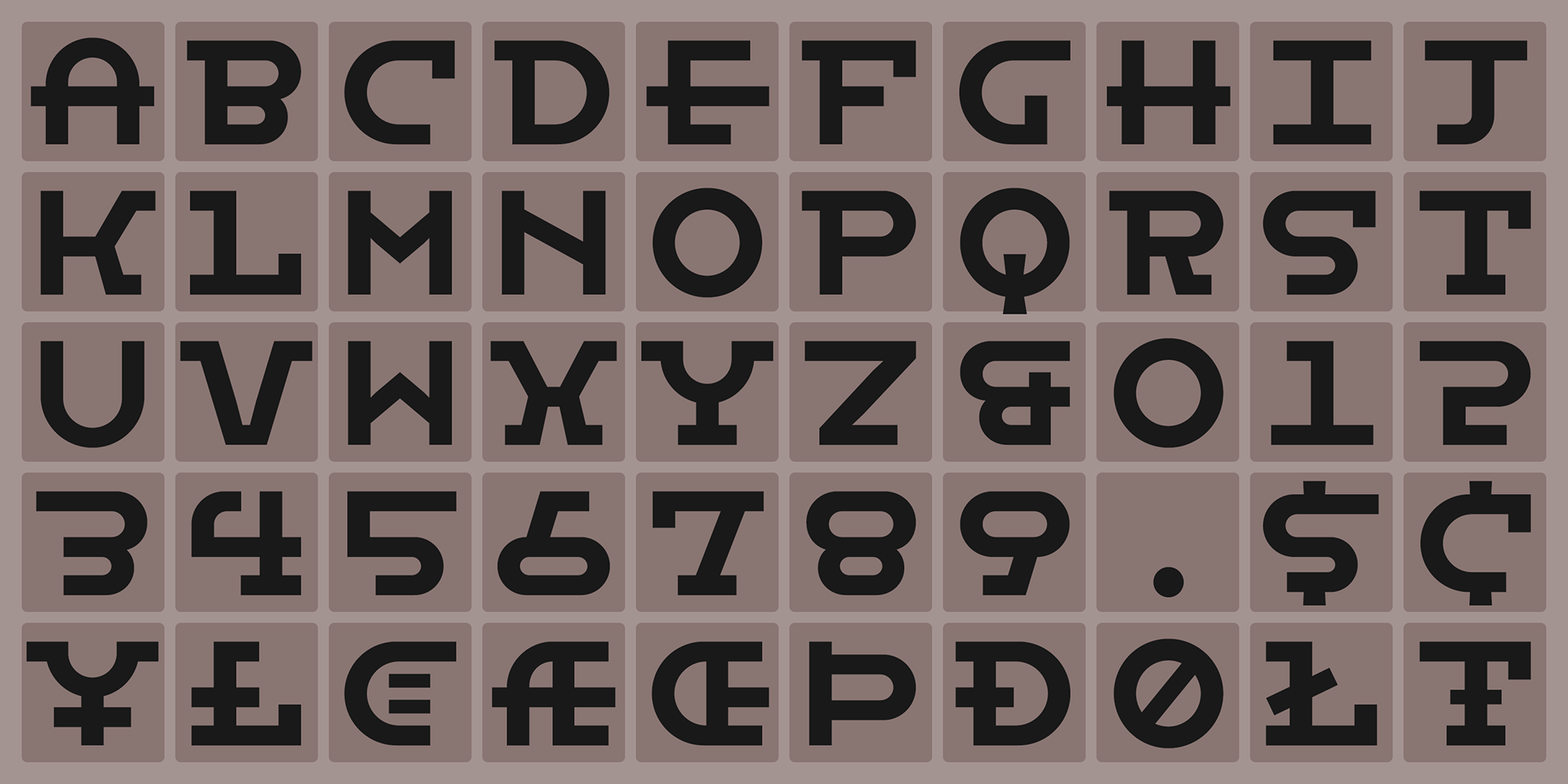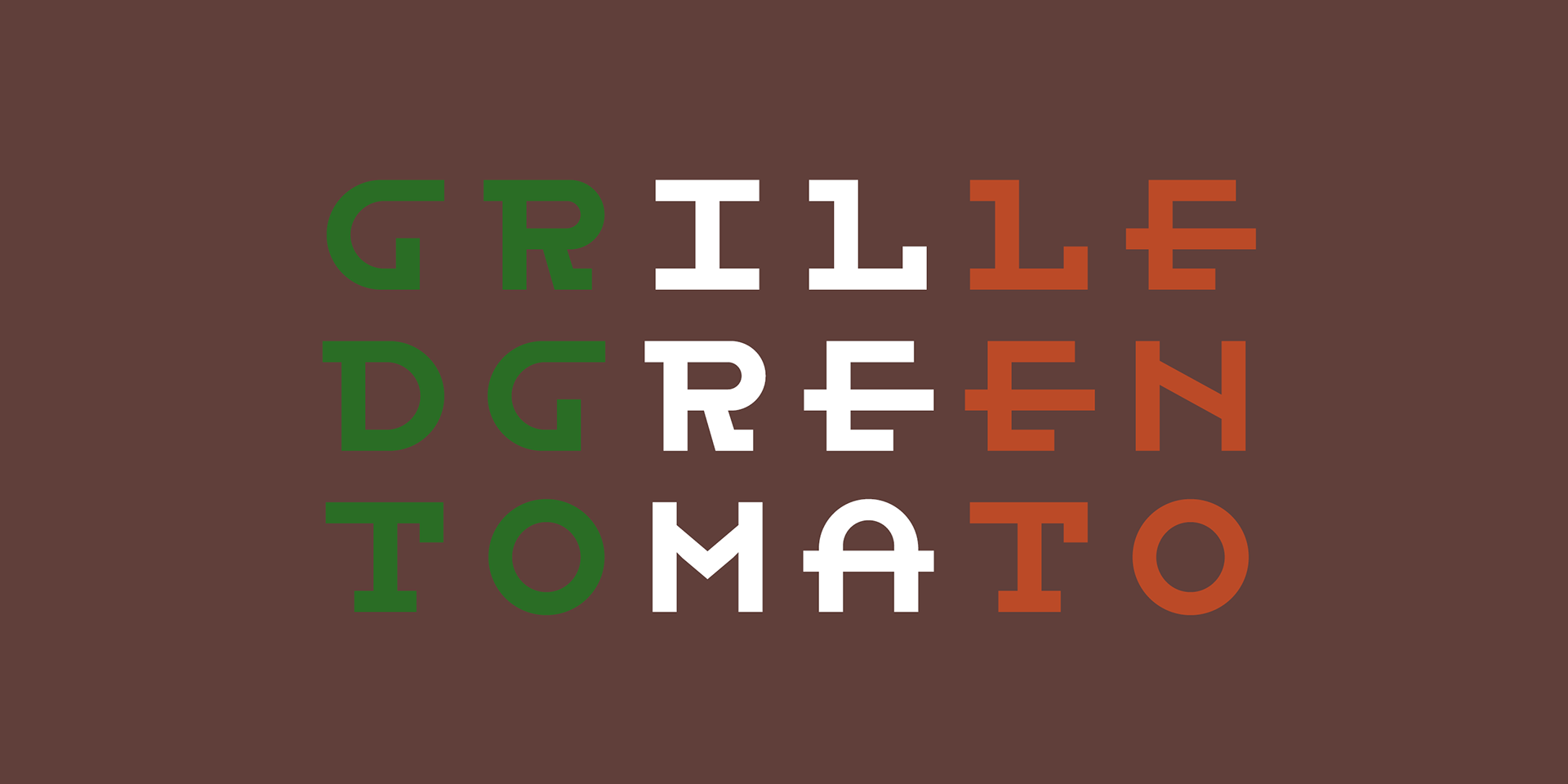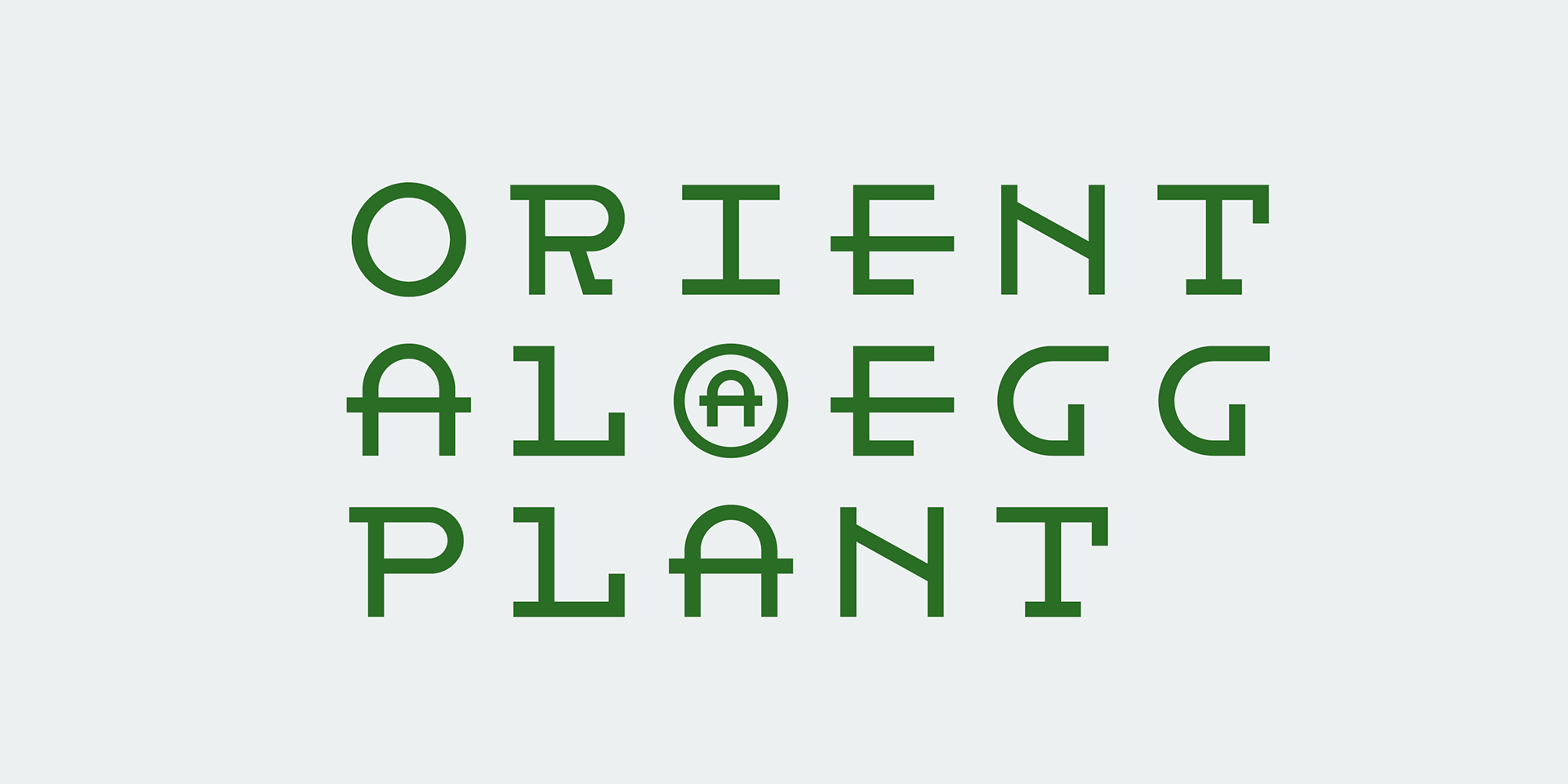
Bistro Mono
A monospaced font originally designed for a small Italian pub and restaurant.
Its distinctive and eye-catching design makes it perfect for signage, menus, and branding with personality.